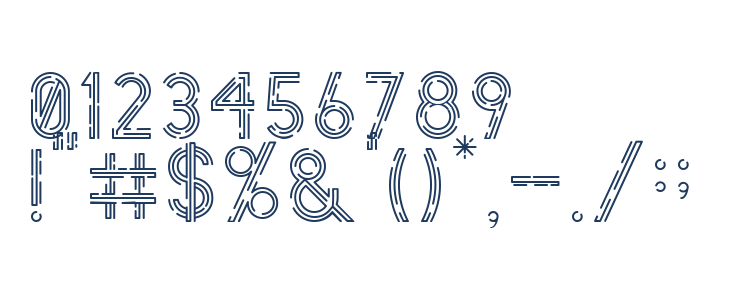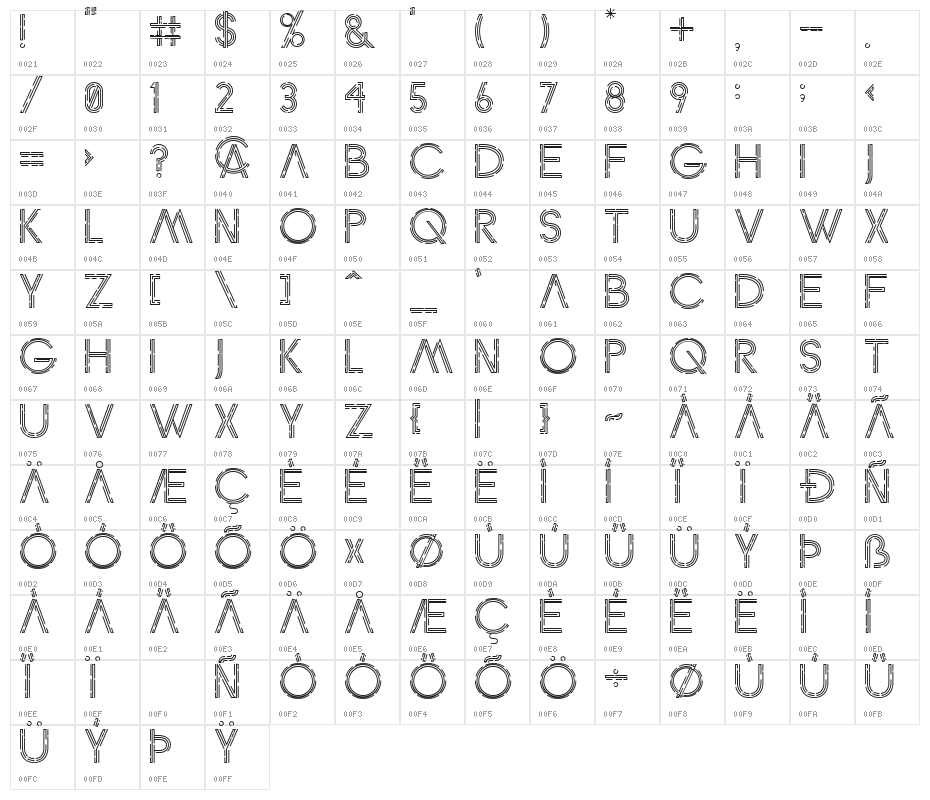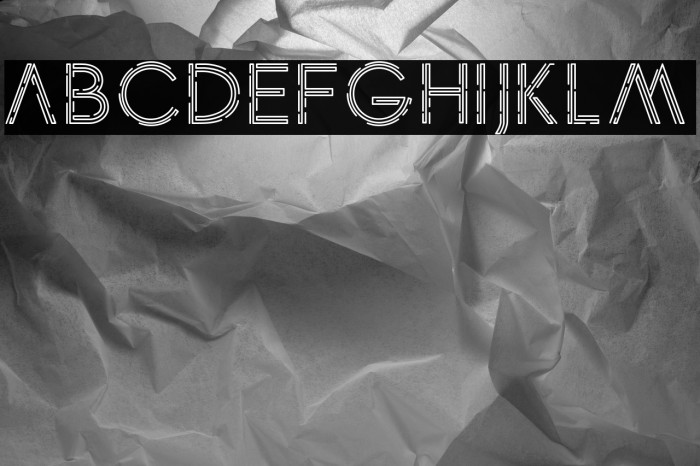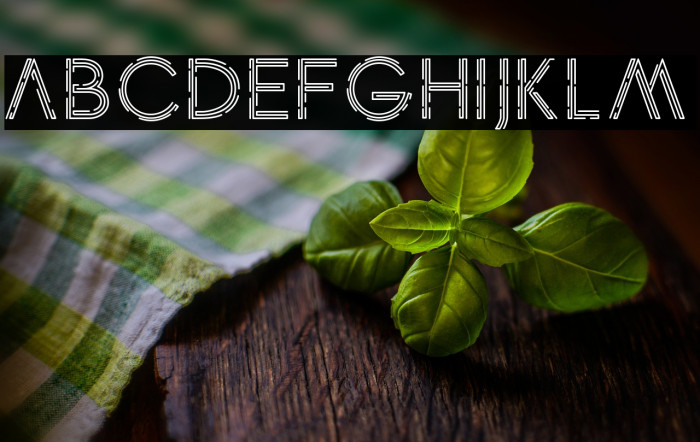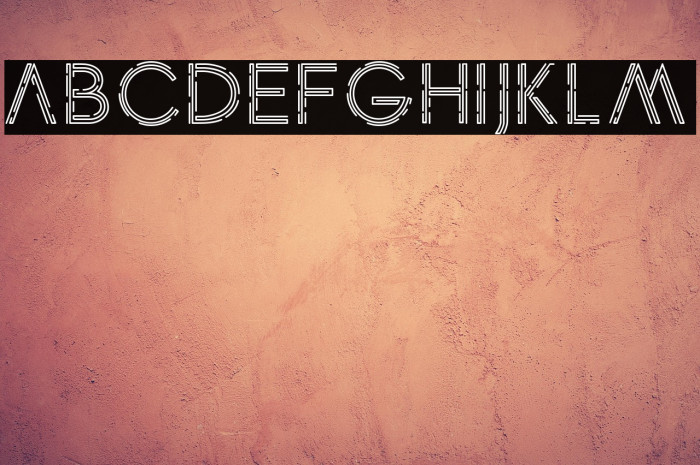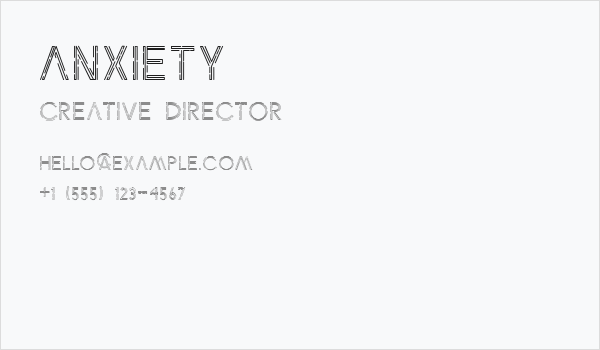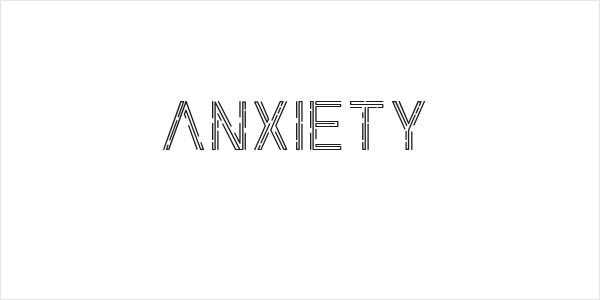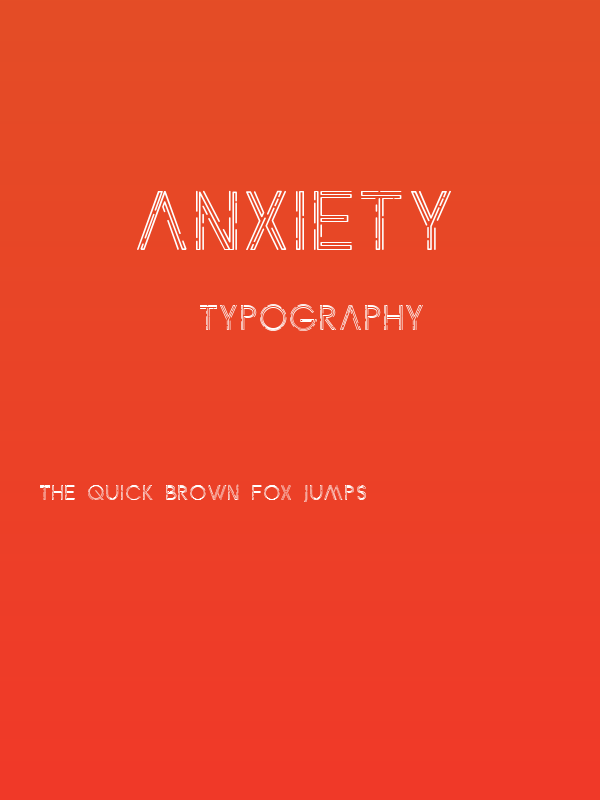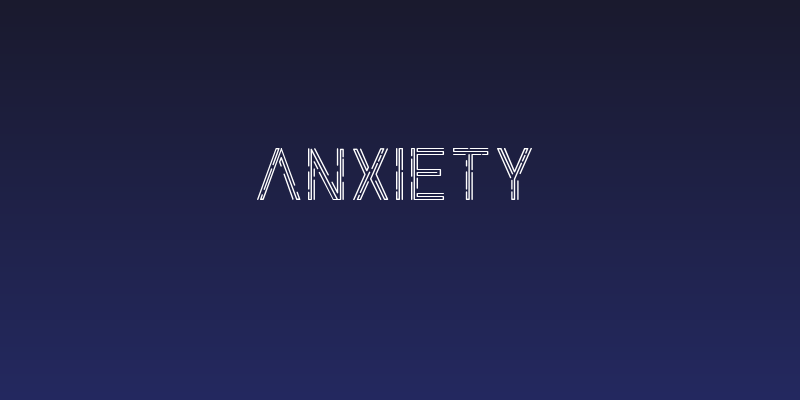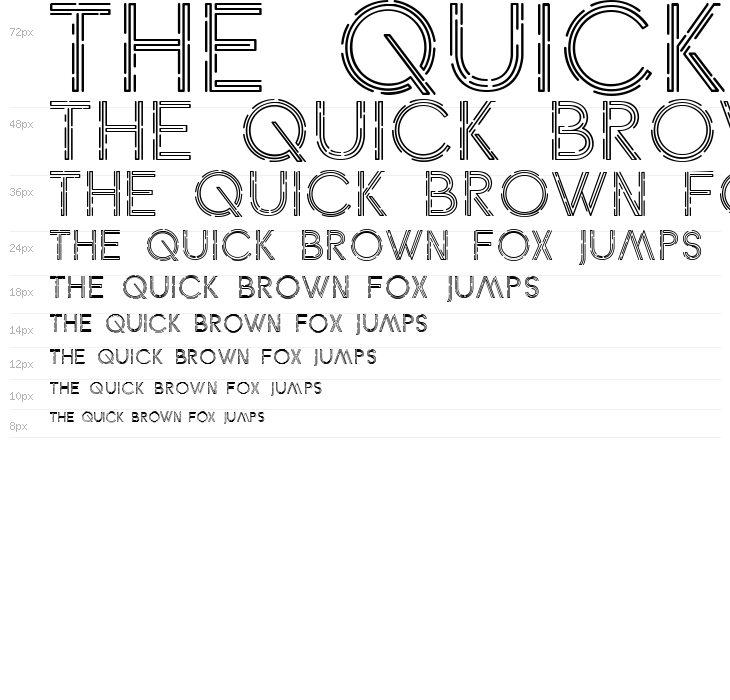
anxiety Font
anxiety Description
This font features a unique, modern design with a geometric, outlined style. Each character is constructed with multiple parallel lines, creating a layered effect that adds depth and visual interest. The uppercase and lowercase letters maintain a consistent height, giving the font a uniform appearance. The numerals and special characters follow the same design principles, ensuring cohesion across all elements. This font's distinct look makes it suitable for projects that require a contemporary and eye-catching aesthetic.
| Proposed Projects | Ideal for branding, posters, headlines, and any design project that seeks a modern and distinctive look. |